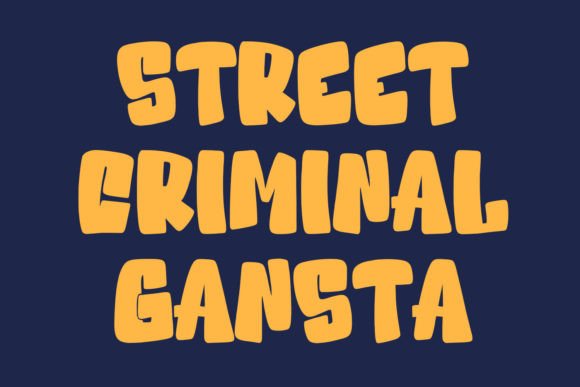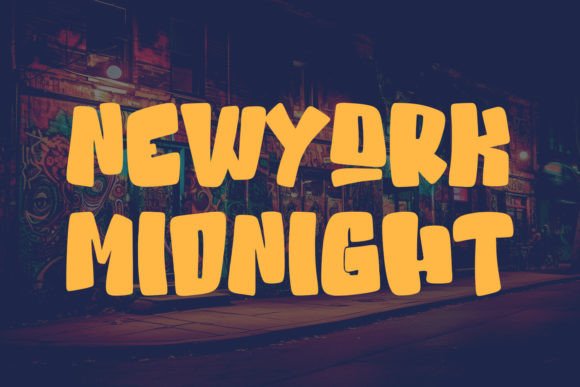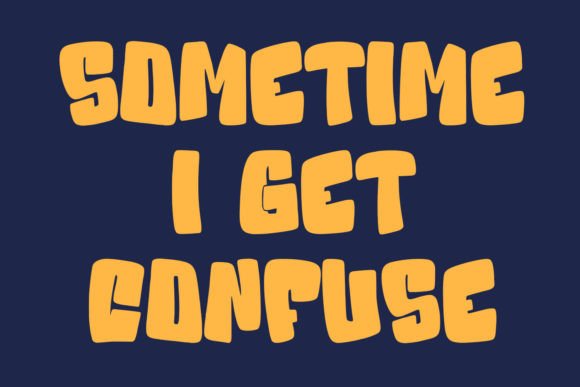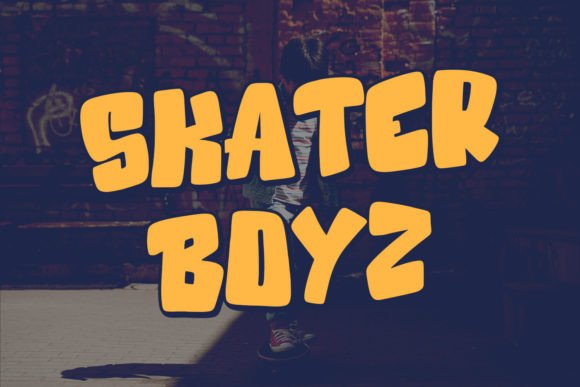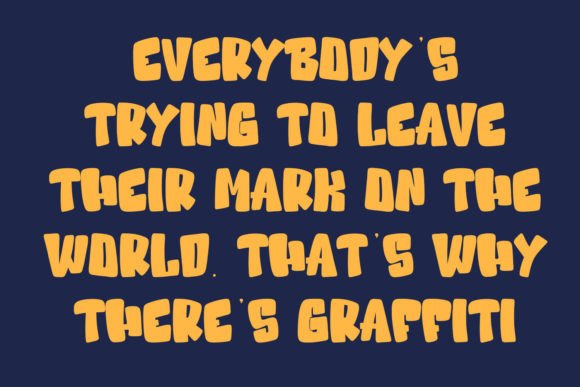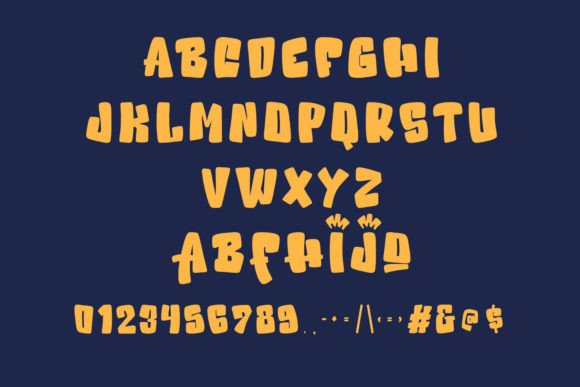
Introducing Bejowish Font: Elevate Your Designs with a Unique Display Font
Are you tired of using the same old fonts for your designs? Look no further than Bejowish, a display font that combines heavy strokes with fun characters and a touch of ligature. This font is perfect for designers and crafters looking to add a creative twist to their work. With its unique style and multilingual support, Bejowish is sure to take your designs to the next level.
What Makes Bejowish Stand Out?
Bejowish is not just another font – it’s a statement piece. Its heavy strokes and fun characters give it a bold and playful look that’s sure to grab attention. The font also features ligatures, which add a touch of elegance and sophistication. Whether you’re designing a logo, creating social media graphics, or working on a movie or book title, Bejowish is the perfect choice.
Multilingual Support
One of the standout features of Bejowish is its multilingual support. With the ability to support over 100 languages, this font is perfect for designers who work with clients from around the world. Whether you’re creating designs for a global audience or simply want to add a touch of international flair to your work, Bejowish has got you covered.
Bejowish is a versatile font that can be used for a wide range of design projects. Here are just a few ideas to get you started:
- Logo Design: Bejowish is perfect for creating unique and memorable logos that stand out from the crowd.
- Social Media: Use Bejowish to create eye-catching social media graphics that grab attention and drive engagement.
- Movie and Book Titles: Add a touch of glamour and sophistication to your movie and book titles with Bejowish.
- Short and Long Text: Whether you’re working with short phrases or long blocks of text, Bejowish is a great choice.
Pairing Bejowish with Other Fonts
Bejowish is a versatile font that can be paired with a variety of other fonts to create a unique look. Here are a few suggestions:
- Script Fonts: Pair Bejowish with a script font for a elegant and sophisticated look.
- Serif Fonts: Combine Bejowish with a serif font for a classic and timeless look.
Get Creative with Bejowish
Bejowish is a font that’s designed to inspire creativity. With its unique style and versatility, this font is perfect for designers and crafters who want to push the boundaries of what’s possible. Whether you’re working on a personal project or a client brief, Bejowish is sure to help you create something truly stunning.
In conclusion, Bejowish is a unique and versatile display font that’s perfect for designers and crafters looking to elevate their designs. With its heavy strokes, fun characters, and multilingual support, this font is sure to take your work to the next level. So why settle for ordinary fonts when you can make a statement with Bejowish?